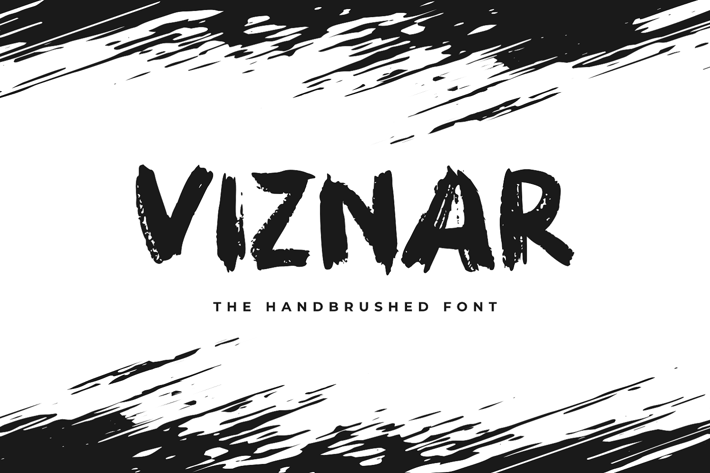
Viznar - The Handbrushed Font
Introducing Viznar - The Handbrushed Font. It comes with brush texture style which is perfect to make any design stand out! This font is perfect for branding, wedding invites, magazines, mugs, business cards, quotes, posters, and more.